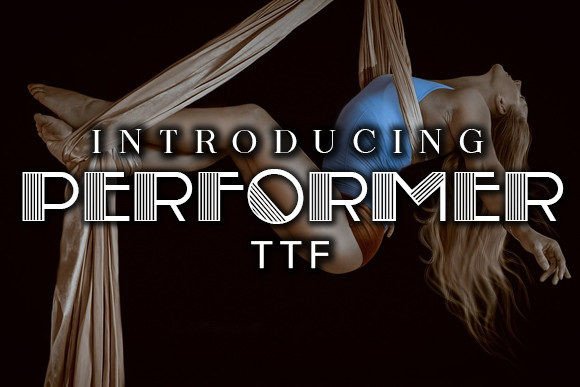
Welcome to the world of Performer Font, where elegance and sophistication intertwine to create a visual masterpiece. Enter a realm of artfully crafted letters, where intricate curves dance alongside sharp angles, forming a harmonious contrast that captivates the eye. Embrace the delicate lines and swirls that adorn each character, adding a touch of grace and finesse to your designs.
Unleash your creativity and let Performer Font elevate your projects to new heights. Its captivating presence commands attention, making your words leap off the page and resonate with your audience. Whether you're crafting stunning flyers, designing captivating posters, or creating eye-catching social media graphics, Performer Font is your perfect companion.
Immerse yourself in the boundless possibilities of Performer Font. Its versatility knows no limits, adapting seamlessly to a myriad of design aesthetics. From sleek and modern to classic and timeless, Performer Font effortlessly complements your unique style. Discover the joy of effortless customization, as Performer Font bends to your will, allowing you to fine-tune its appearance to match your vision perfectly.
With Performer Font as your creative ally, you'll find yourself captivated by its charm and elegance. Let your imagination soar and watch as your designs transform into works of art, leaving a lasting impression on all who behold them. Experience the magic of Performer Font today and unleash the full potential of your creativity.